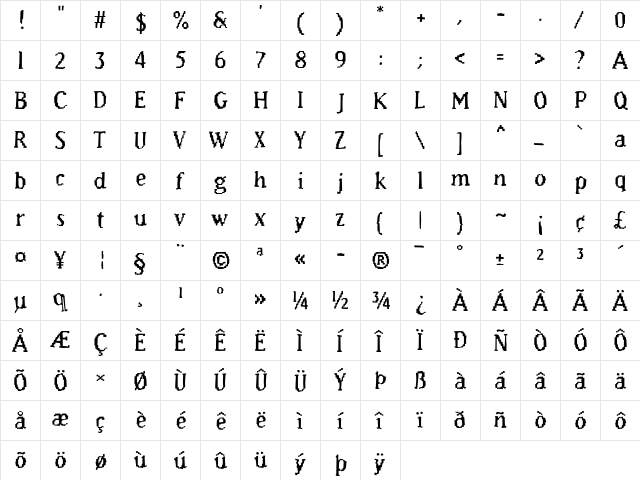
Murphy33 Regular
Design Context for Murphy33 Typeface
Murphy33 is a composed and adaptable typeface that performs quietly and consistently across a wide range of design contexts.